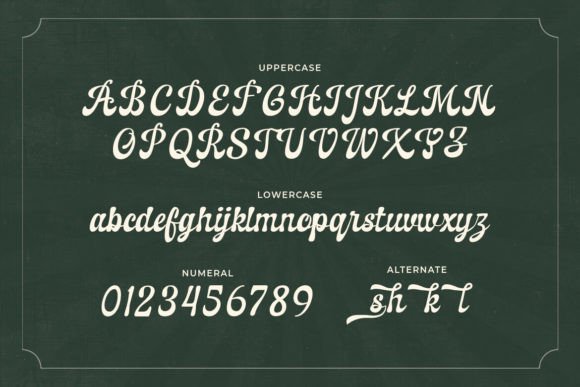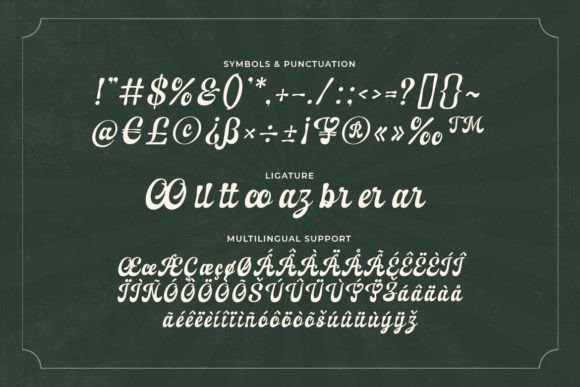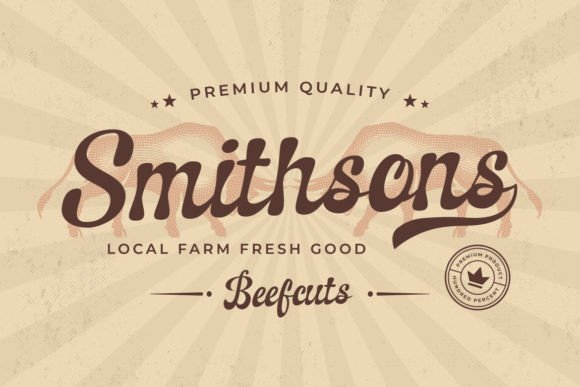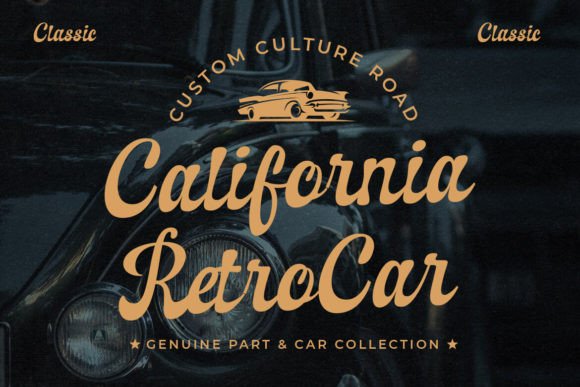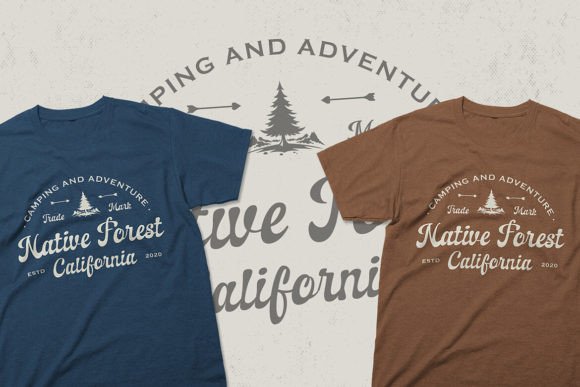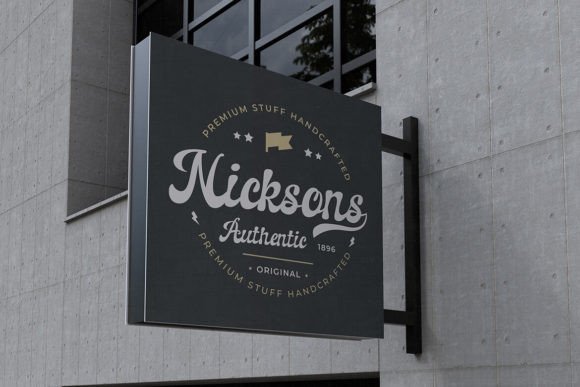
Introducing Declaries Font: A Retro Script Font for Timeless Designs
Are you looking for a font that can add a touch of nostalgia and vintage charm to your designs? Look no further than Declaries, a retro script font that captures the essence of mid-century typography. With its fluid strokes and authentic retro style, Declaries is perfect for designers and crafters who want to infuse their projects with a sense of timeless elegance and nostalgic appeal.
The Charm of Retro Typography
Retro design has become increasingly popular in recent years, and typography plays a crucial role in creating that vintage look. Declaries font is designed to transport you back to the golden age of vintage design, with its classic letterforms and retro charm. This script font is perfect for adding a touch of nostalgia to your designs, whether you’re creating retro logos, signage, apparel designs, or packaging.
What Makes Declaries Unique?
Declaries stands out from other script fonts due to its unique blend of fluid strokes and authentic retro style. The font’s design is inspired by mid-century typography, with a focus on creating a sense of warmth and personality. With Declaries, you can add a touch of vintage flair to your designs, making them stand out with nostalgic allure.
Declaries is perfect for designers and crafters who want to create unique and eye-catching projects. The font’s retro style makes it ideal for a wide range of applications, including:
- Retro logos and branding
- Signage and advertising
- Apparel designs and fashion
- Stationery and invitations
Why Choose Declaries?
- Unique and authentic retro style: Declaries captures the essence of mid-century typography, making it perfect for adding a touch of nostalgia to your designs.
- Fluid strokes and classic letterforms: The font’s fluid strokes and classic letterforms create a sense of warmth and personality, making your designs stand out.
- Versatile and easy to use: Declaries is a script font that can be used for a wide range of applications, from logos and signage to apparel and packaging.
How to Use Declaries in Your Designs
- Pair with modern fonts: Pair Declaries with modern fonts to create a striking contrast and add visual interest to your designs.
- Use for headlines and titles: Use Declaries for headlines and titles to add a touch of nostalgia and vintage charm to your designs.
- Experiment with colors: Experiment with different colors and textures to add depth and interest to your designs.